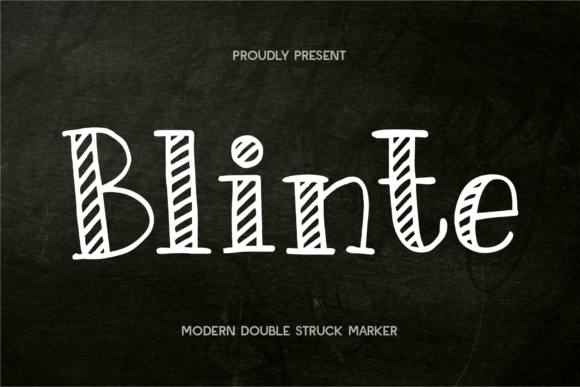
Discover the Charm of Blinte Font: A Modern Double-Struck Marker Font
A First Impression of Blinte
Blinte is a captivating modern double-struck marker font that radiates creativity and charm. Its distinct design features are bold, outlined letterforms with diagonal hatch fills, giving it a hand-drawn yet polished appearance. The playful and dynamic style makes it a versatile choice for a wide range of design projects, from educational materials to vibrant posters and bold branding.
An Honest Review of Blinte
What I Love About Blinte ✨
- ✅ Unique and distinctive design that stands out in any project
- ✅ Perfect blend of casual and structured aesthetics
- ✅ Highly versatile and adaptable to various design needs
- ✅ Easy to read, even in larger or smaller sizes
- ⚠️ Limited use in formal or traditional design contexts
- ⚠️ May not be the best choice for body text due to its bold nature
The Story Behind Blinte
Blinte was created with the intention of merging playfulness with functionality. The designer aimed to craft a font that could effortlessly bridge the gap between casual hand-drawn styles and more structured typography. Inspired by the expressive qualities of marker strokes and the clarity of digital fonts, Blinte brings a fresh perspective to modern typography.
Q: Is Blinte suitable for body text?
A: While Blinte is highly legible, its bold nature makes it more suitable for headlines and short paragraphs. For extensive body text, a simpler font might be more effective.
Q: Does Blinte support OpenType features?
A: Yes, Blinte supports OpenType features, allowing you to access a range of glyphs and stylistic alternates to enhance your designs.